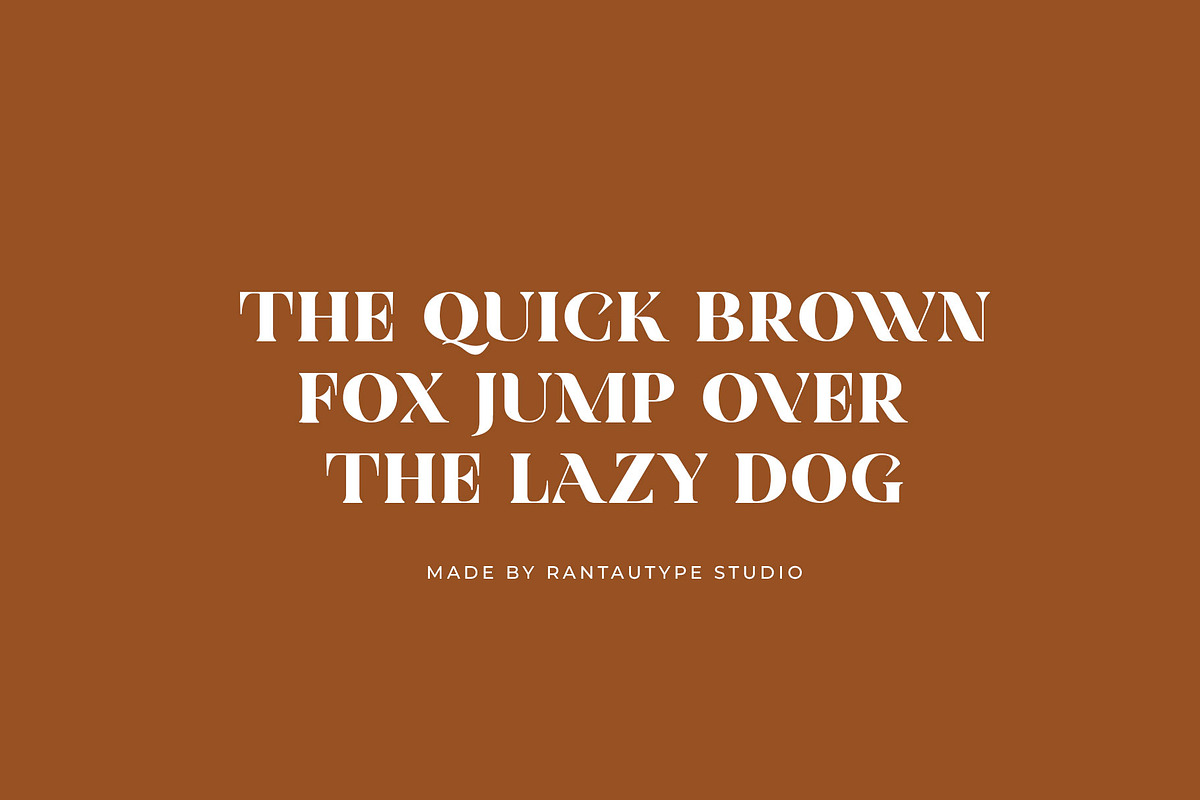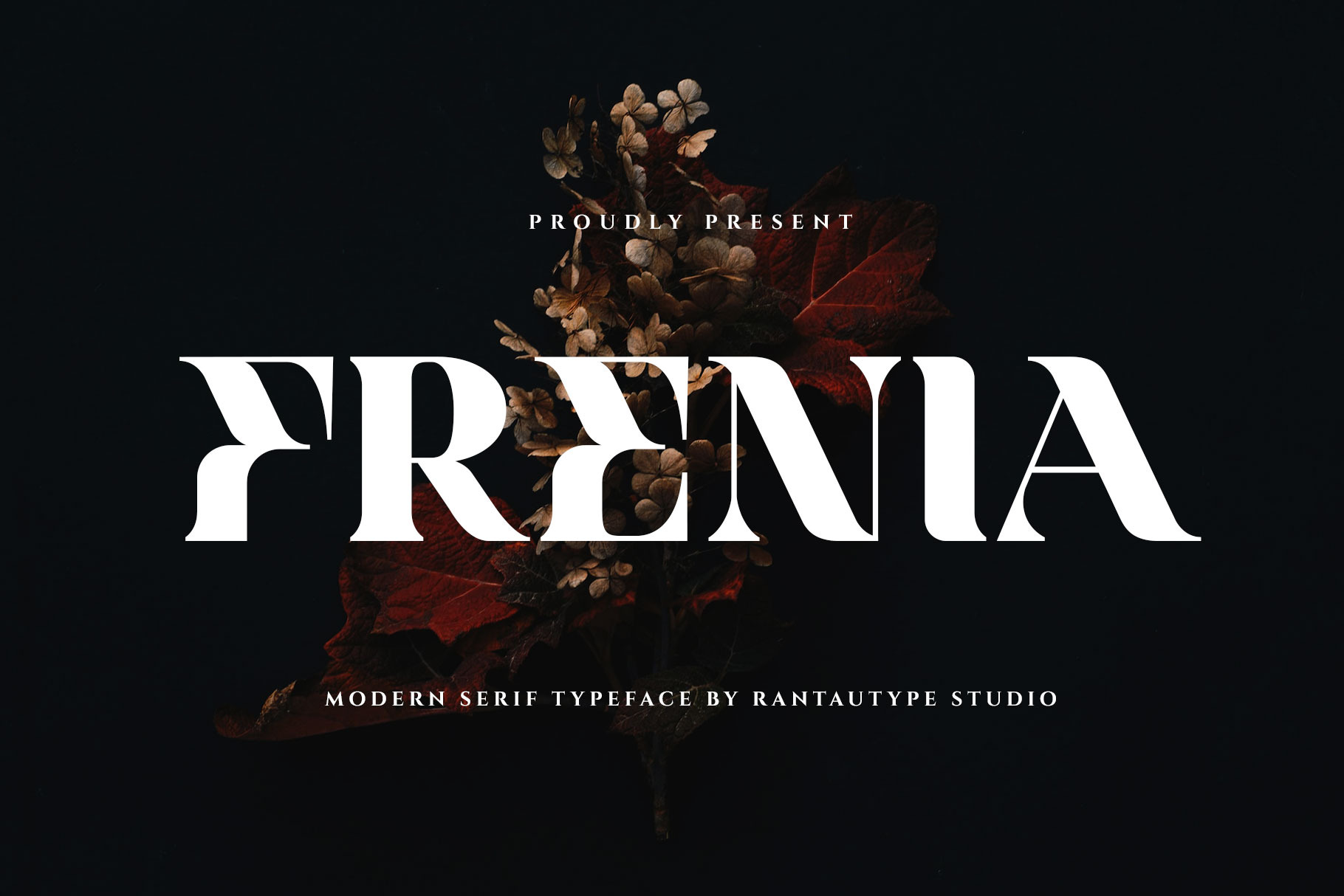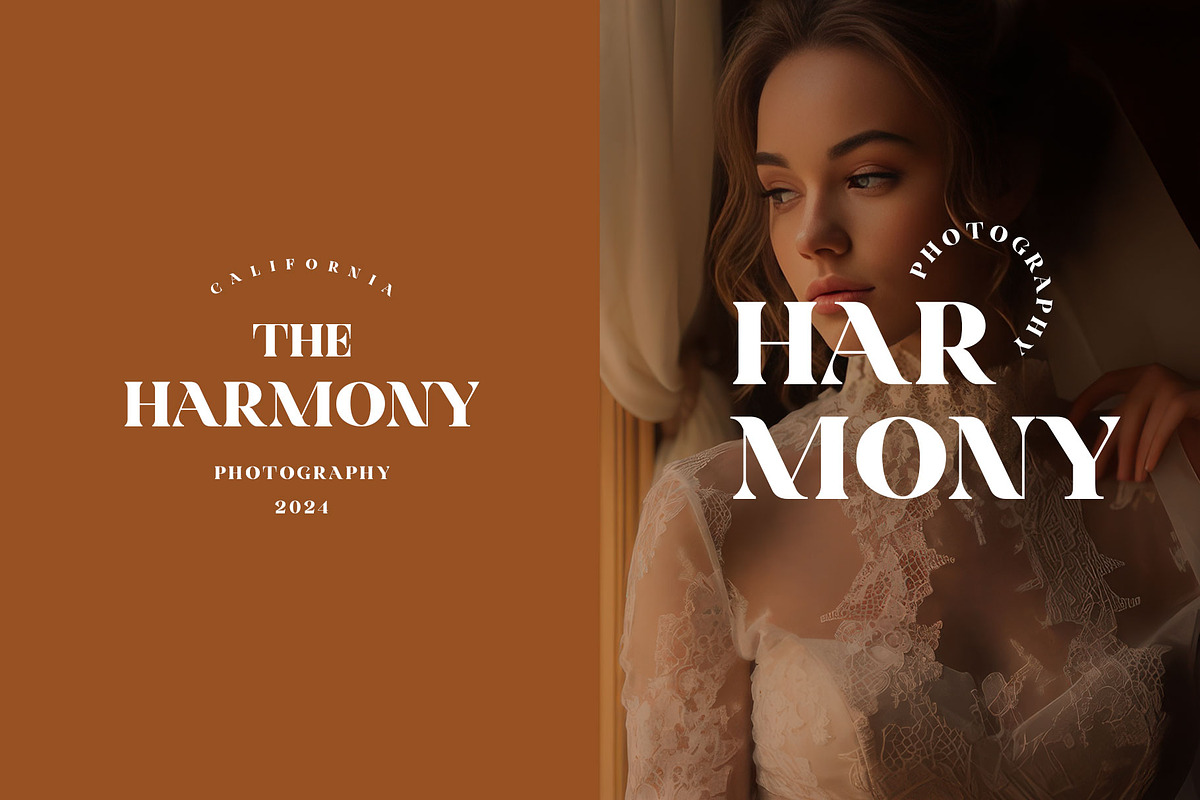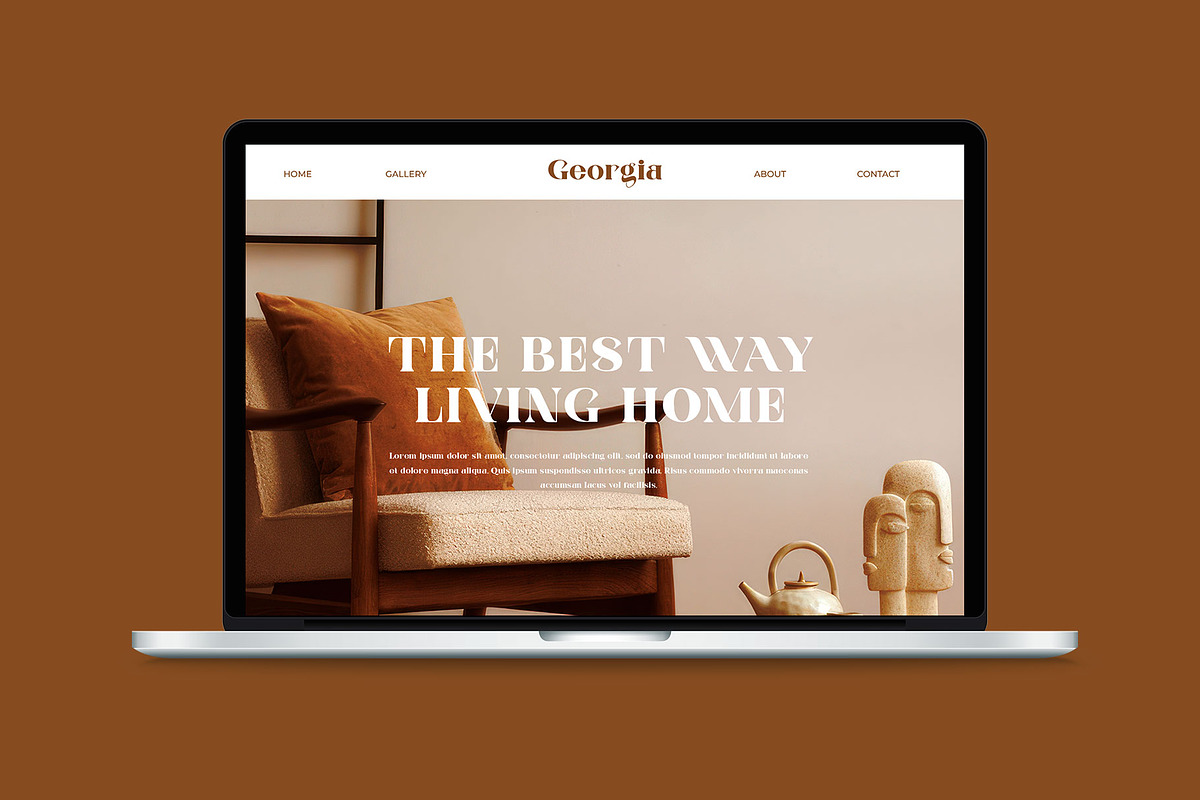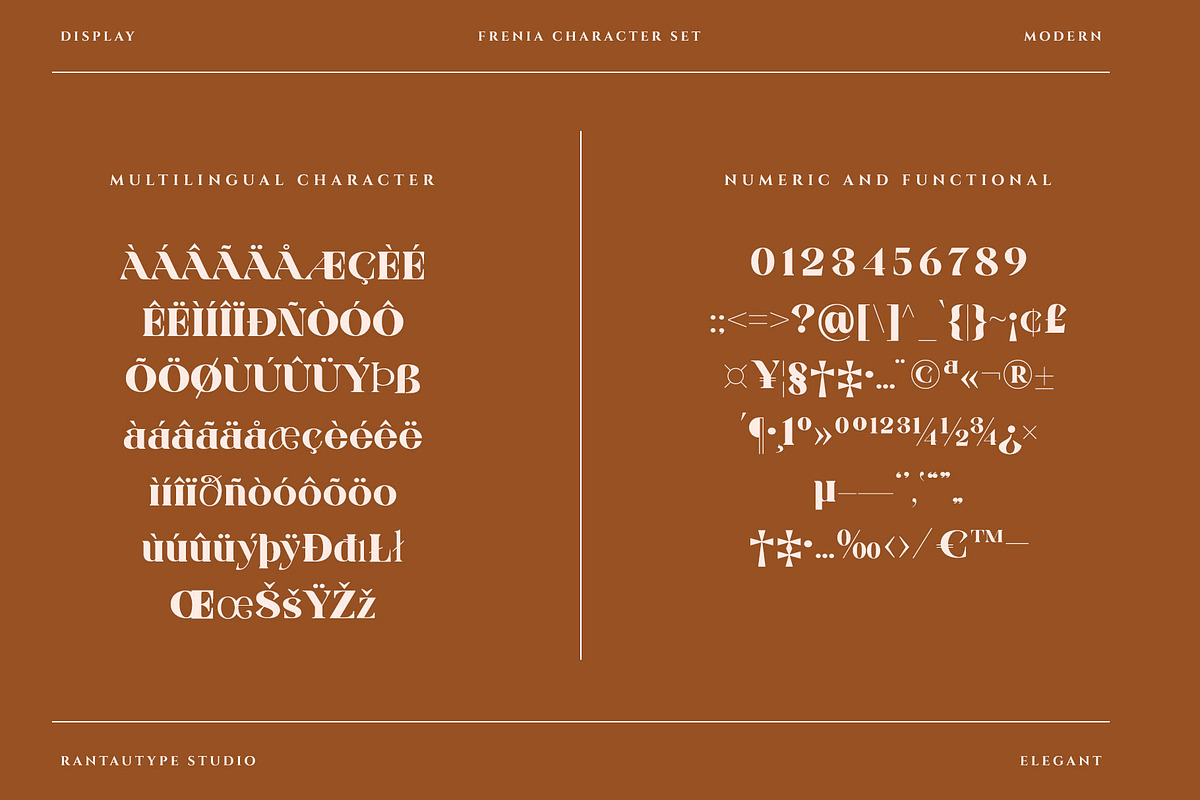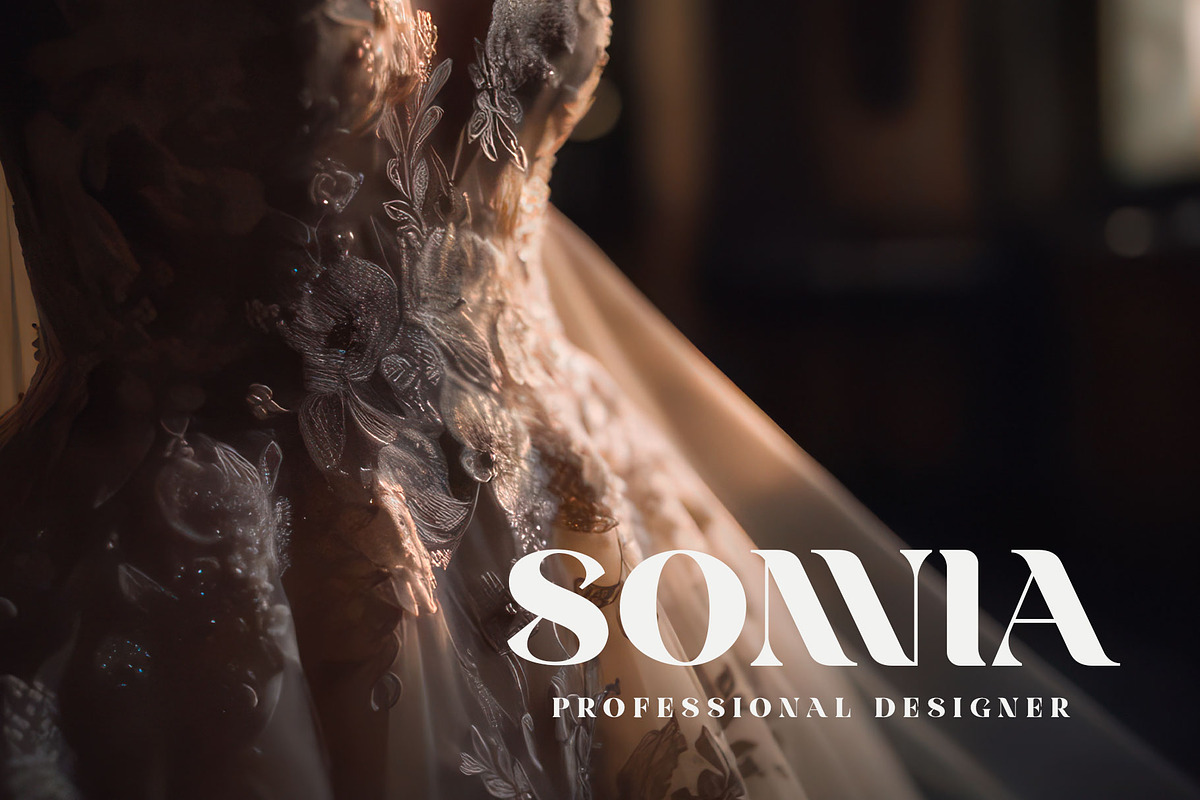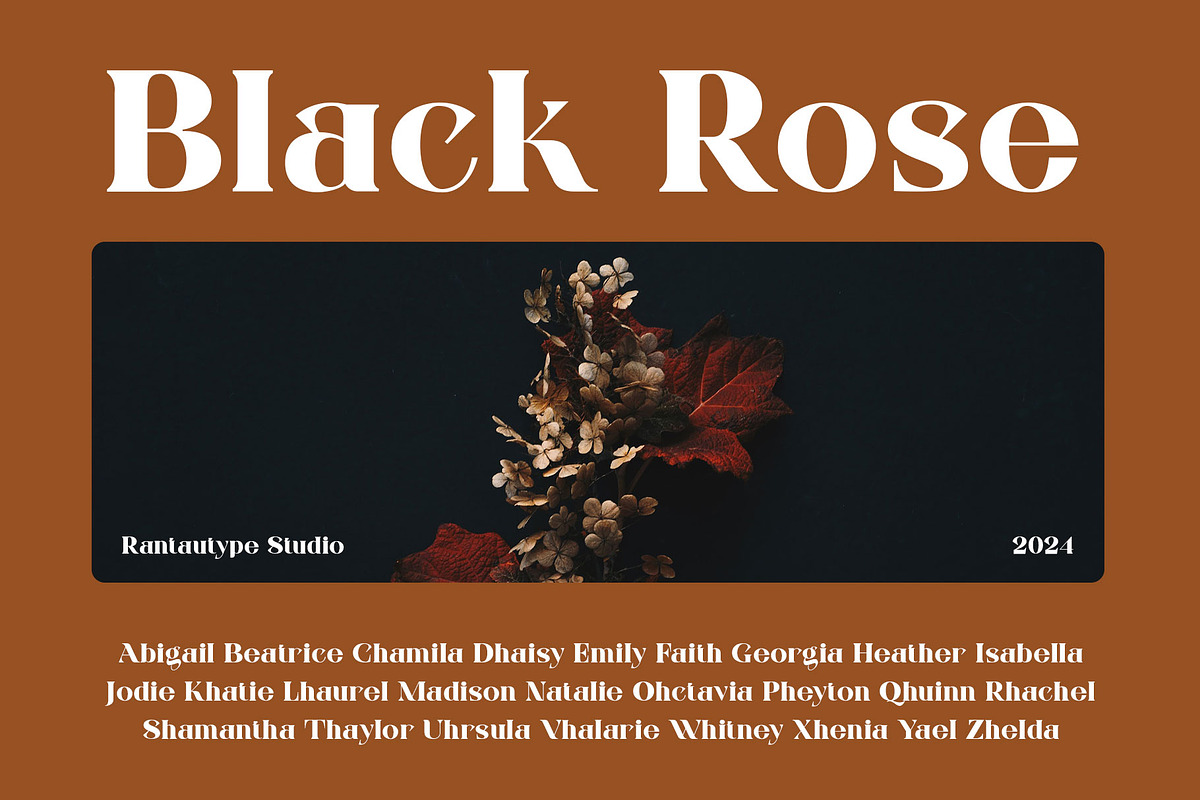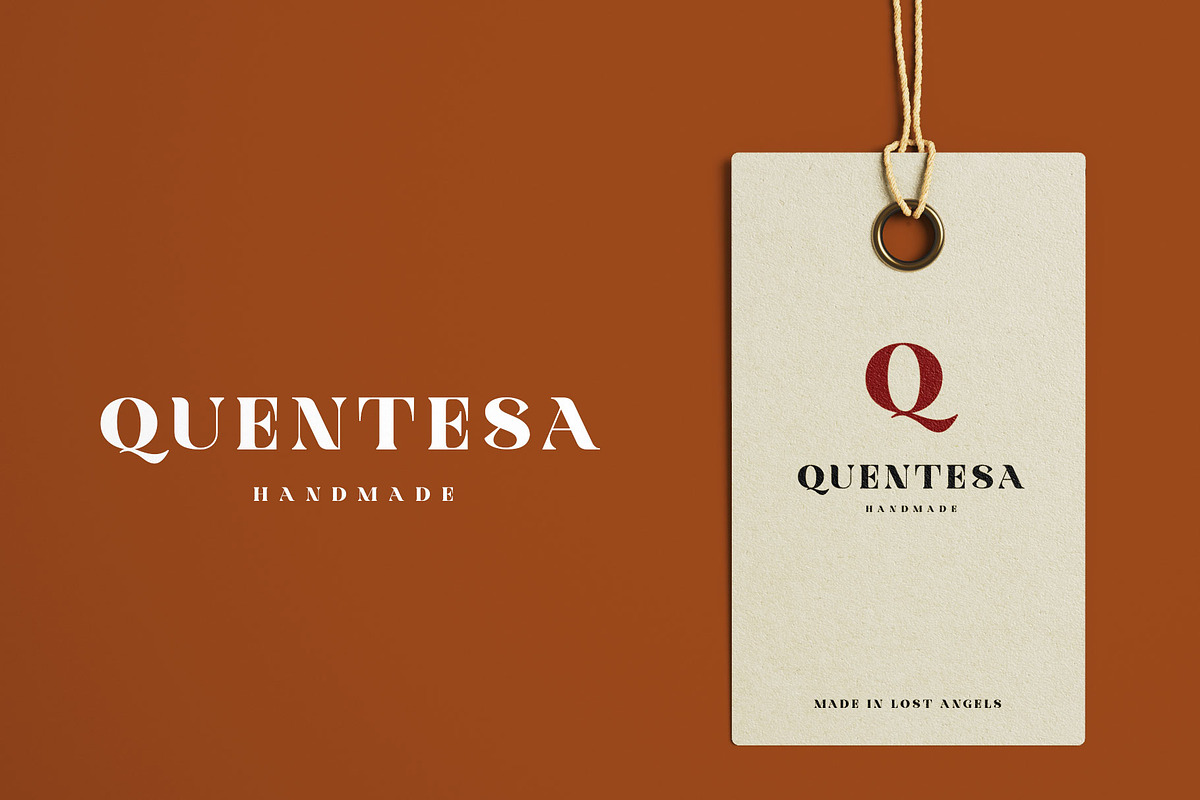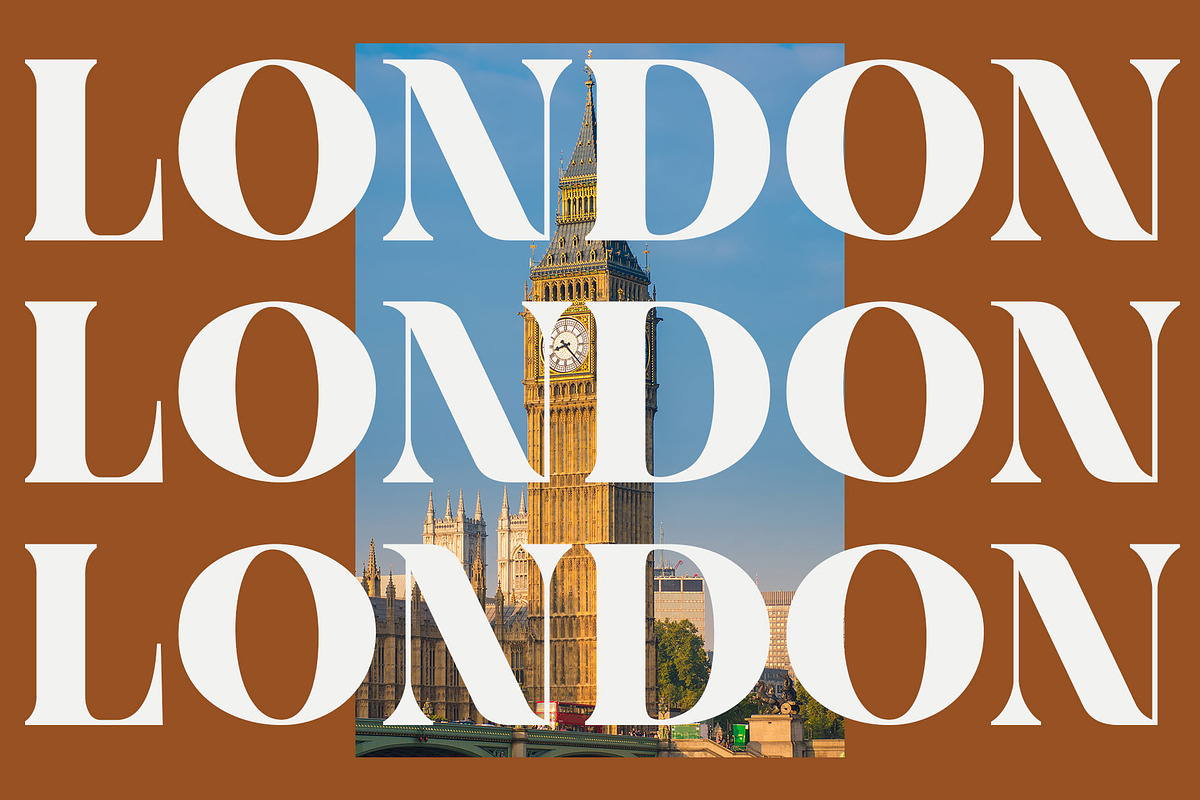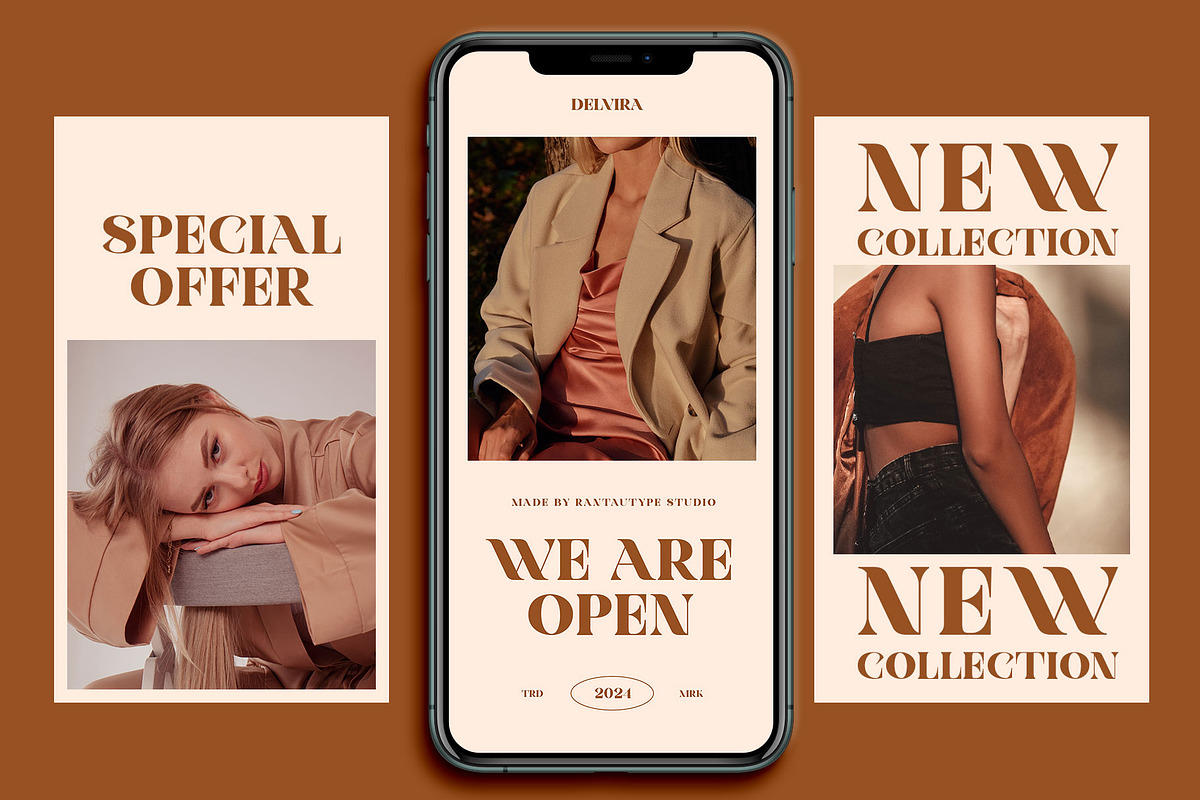
Frenia Modern Serif Typeface
Frenia is modern display typeface with bold visual look. Frenis inspire by famous style and branded brand which reflects elegancy and luxurious..
Frenia is a perfectly choice for any creative endeavor, chic, lifestyle design such as logos, advertisements, watermark on photography, stationery, branding project, display and magazine, invitation, corporate brand, product design, label, business project and many other project with elegant touch.
- Standart Glyphs
- Alternate and ligature
Fonts include Multilingual Character for: Afrikaans, Albanian, Asu, Basque, Bemba, Bena, Breton, Chiga, Cornish, Dutch, English, Estonian, Filipino, Finnish, Friulian, Galician, Gusii, Indonesian, Irish, Italian, Kabuverdianu, Kalenjin, Kinyarwanda, Luo, Luxembourgish, Luyia, Machame, North, Oromo, Portuguese, Quechua, Romansh, Rombo, Rundi, Rwa, Samburu, Sango, Sangu, Scottish, Gaelic, Sena, Shambala, Shona, Soga, Somali, Spanish, Swahili, Swedish, Swiss, German.